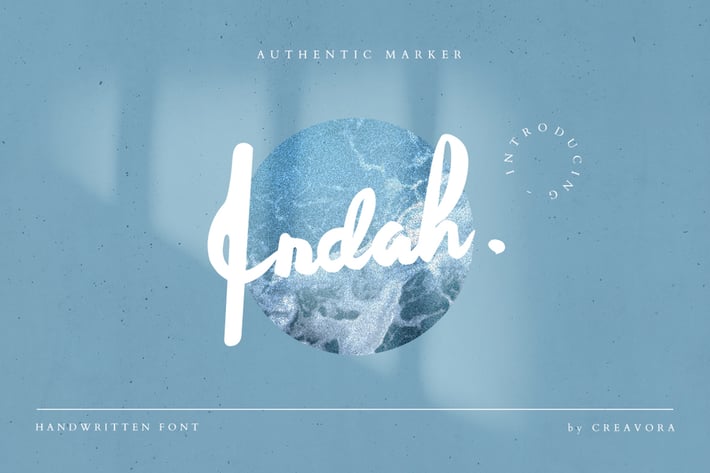
Indah - Bold Handwritten Font
Introducing Indah - Bold Handwritten Font
Indah is a lovely handwritten font that oozes with style.
This font looks great for invitations, branding, and any other crafting projects. If you need a touch of flair to your design, look no further. Download now!